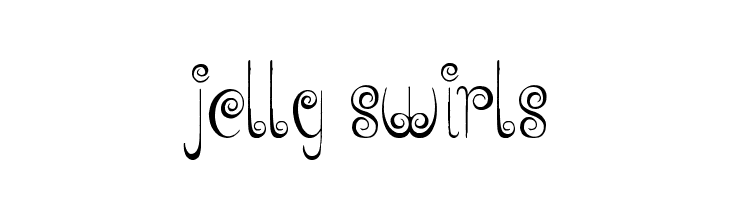
A whimsical, curly font with playful swirls and decorative elements.
A whimsical and playful font with decorative curls and flourishes.
A whimsical, curly font with thin strokes and playful loops.